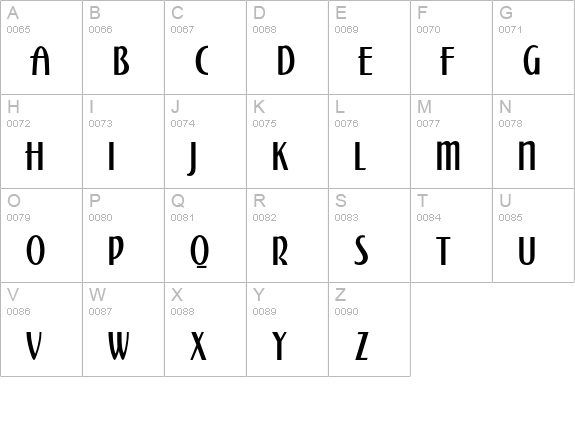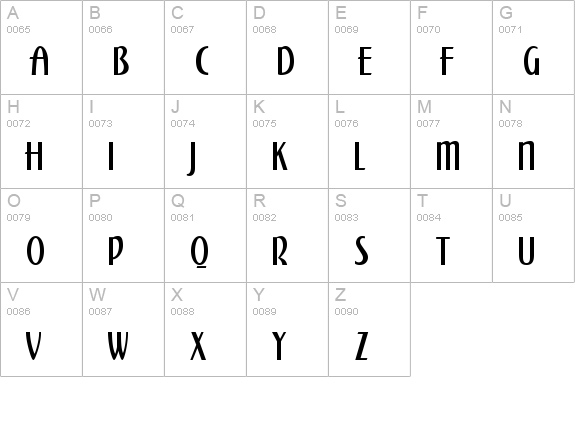
OPTIPlayers-Plain Font Details
OPTIPlayers-Plain font is a versatile and modern typeface that exudes simplicity and elegance. With its clean lines and balanced proportions, this font is perfect for a wide range of design projects, from branding and marketing materials to web design and editorial layouts. The sleek and minimalistic look of OPTIPlayers-Plain font makes it a great choice for creating a professional and polished appearance. Best of all, OPTIPlayers-Plain font is available for free download at FontsMarket.com. This means you can easily access this high-quality font without any cost, making it a valuable resource for designers and creatives looking to enhance their projects with a sleek and sophisticated typeface. Don't miss out on the opportunity to add OPTIPlayers-Plain font to your font library today and elevate your designs with its timeless appeal.